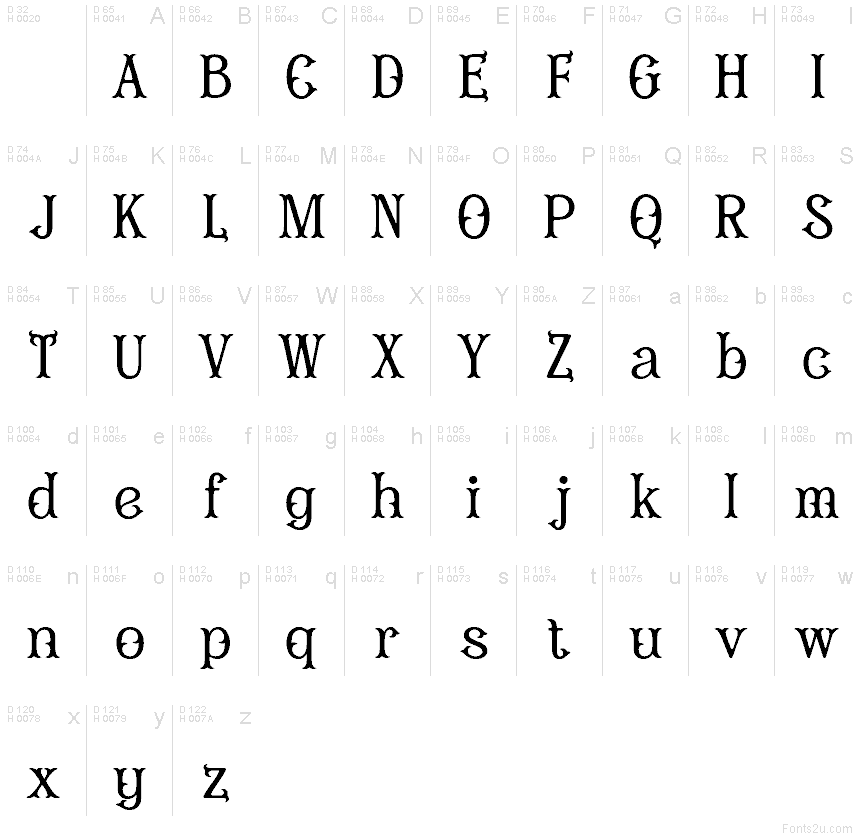
CS Visery Drawn font by Craft Supply Co. is a vintage display typeface with intricate details and decorative flourishes that add to its elegant aesthetic. With ornate serifs that draw the eye, the font has a historical influence while managing to remain both fresh and familiar. At no expense whatsoever, get it as a free decorative font.
Use CS Visery Drawn to design titles, headers, and sub-headers in posters or magazines or use it for logos and labels for food products, mainly coffee packages. It’s also very appealing when used on invitation cards like wedding invitations, RSVP cards as well as menu designs. Enjoy experimenting with it!